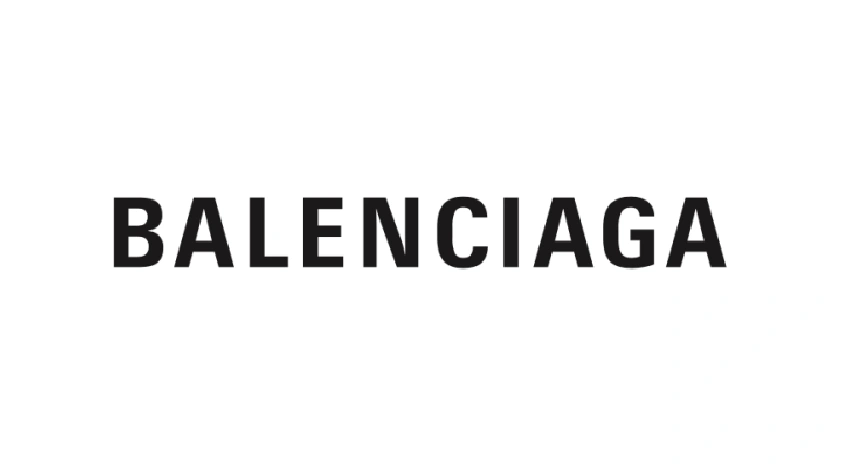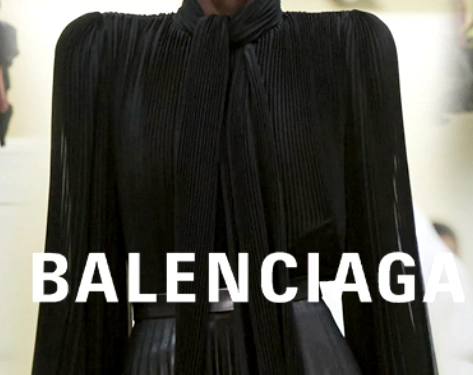
Balenciaga font is a bespoke typeface developed for the luxury fashion brand Balenciaga. It reflects the brand’s modern and minimalist aesthetic, characterized by clean lines and sleek elegance.
Similar to Balenciaga Font
There are many fonts that are similar to the Balenciaga Font. like
Utah Condensed Bold Font
This font is very close to the Balenciaga logo font. You can also called it replica. But Utah Condensed Bold Font is from Monotype and is available for purchase.
Zurich Condensed Bold (Bitstream Inc.)
This for is by Bitstream and its another similar font to the logo. Zurich Condensed Bold font is free for personal use only.
Shilia Heavy Font
Another look alike font from Linotype. This is also a paid font.
OPTIUniversSixtySeven Font
This Font is a condensed bold sans serif typeface that is similar to the Balenciaga Font. It is part of the OPTI Fonts Archive, a collection of fonts created by Castcraft Software. This font is free.
BB Condensed Font
Another free font look like the logo.